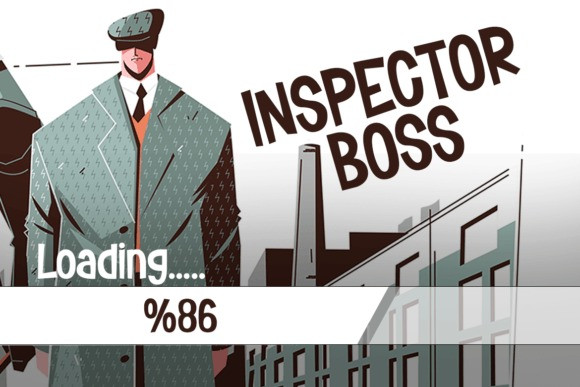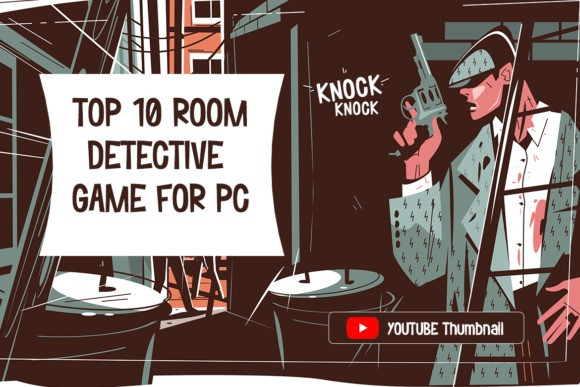
Flicker Display Font – Story Gaming Font. Sounds like a mystery feels like a mystery, and is written like a mystery as well. This Flicker is what happens when the murderer suspect enters the alley, all lights go flick, and then BOOM!
Suited perfectly for detectives/ mystery books market, online games, event posters, school supplies font, posters, movie titles, youtube covers, youtube thumbnails, social media page covers, and so on…